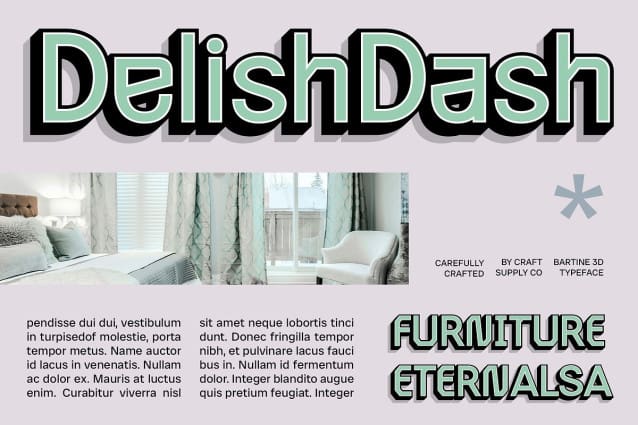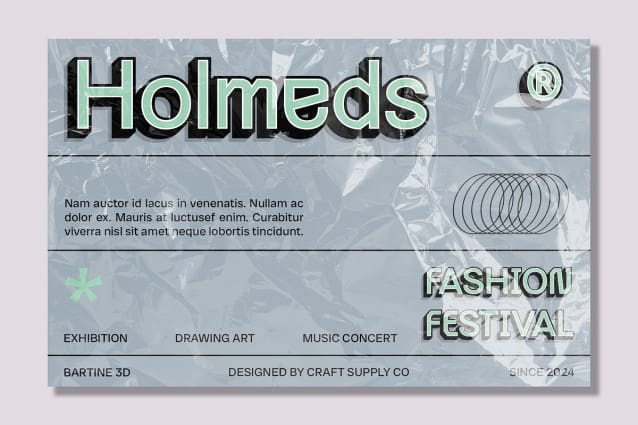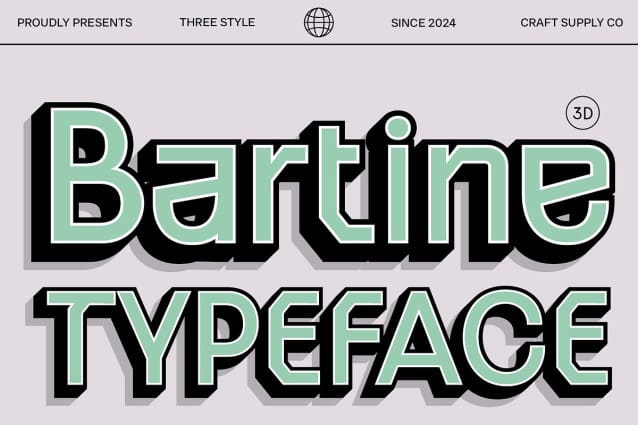
Bartine 3D Font
Bartine 3D Font is a modern sans-serif font that captures the essence of contemporary innovation through its industrial form and striking 3D effect. Featuring strong, assertive lines and a robust structure, this font emphasizes durability and reliability, making it a perfect choice for designs that demand a sense of power and stability.
Enhanced Visual Depth and Dimension The distinctive 3D effect applied to Bartine 3D introduces an extra layer of visual depth, creating a dynamic and engaging appearance. This effect not only enhances the font’s modern aesthetic but also adds a sense of dimensionality that brings a futuristic touch to your designs. The combination of industrial strength and 3D detail ensures that the font stands out in any application.
Perfect for Bold, Futuristic Projects Ideal for applications that seek to convey a cutting-edge and technologically advanced look, Bartine 3D is well-suited for a variety of uses, including technology branding, digital interfaces, and promotional materials. Its bold presence and innovative design make it an excellent choice for projects where a powerful and modern visual impact is essential. Whether for tech-oriented designs or futuristic branding, Bartine 3D delivers a compelling and sophisticated edge.